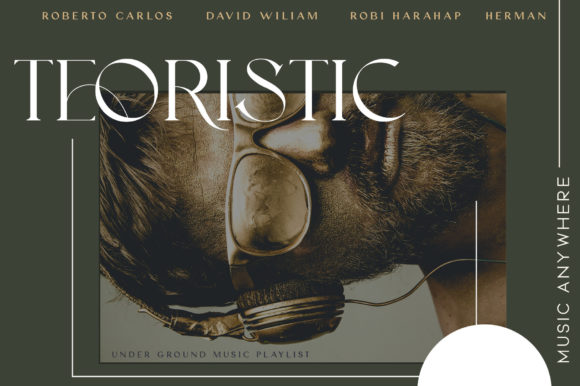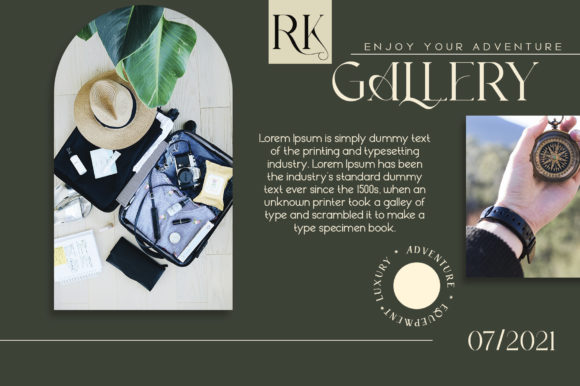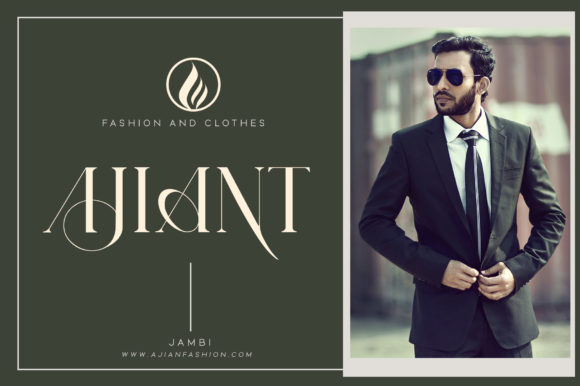
Introduction to Qomarun Font
You know that moment when you’re working on a creative project, and the perfect font just isn’t quite right? It’s like the missing piece of a puzzle that makes everything come together. That’s exactly what we’re excited to introduce you to today: the Qomarun Font.
This luxurious serif font is designed to elevate your designs to the next level, with uniquely styled characters that will give your project a fashionable finish. Whether you’re creating a product presentation, designing an elegant logo, or crafting expensive packaging or invitations, the Qomarun Font is the perfect design resource to add that extra touch of sophistication.
- Unique, elegant design that adds a touch of sophistication to any project
Honest Review: Qomarun Font
I recently stumbled upon the Qomarun Font, and I’m excited to share my thoughts on this design resource. At first glance, the Qomarun Font appears to be a high-quality, free download that’s perfect for any creative project.
- ✨ Unique and modern design aesthetic that sets it apart from other fonts
- ⚠️ Limited character set, which might be a concern for projects that require a wide range of characters
Overall, I’m impressed with the Qomarun Font’s design and quality. While it may have some limitations, it’s a great option for designers who need a high-quality, free font for their creative project.